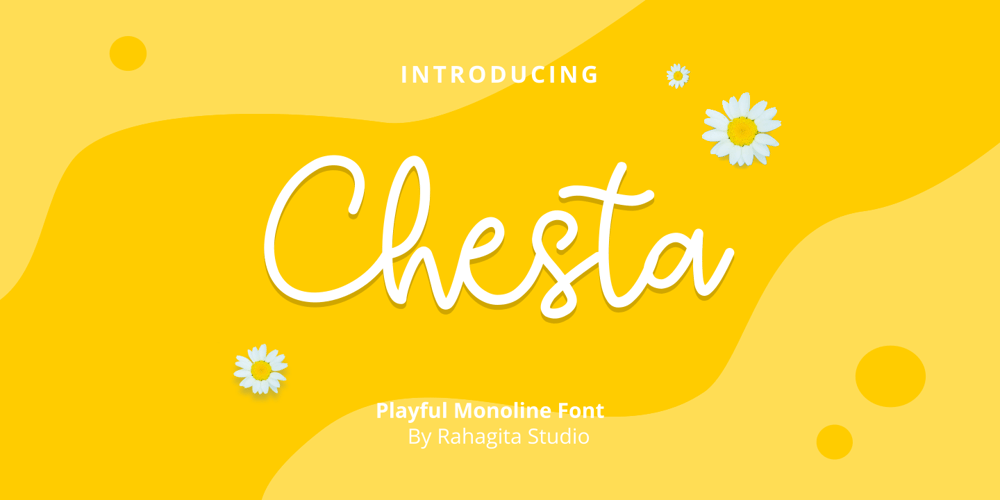
Chesta Font Family was designed by Setiadi Rahagita and published by RahagitaType. Chesta contains 1 styles and family package options. Chesta is playful monoline font for a lot of purposes. Such as branding, packaging, logo, craft, fashion, poster, brochure, etc.